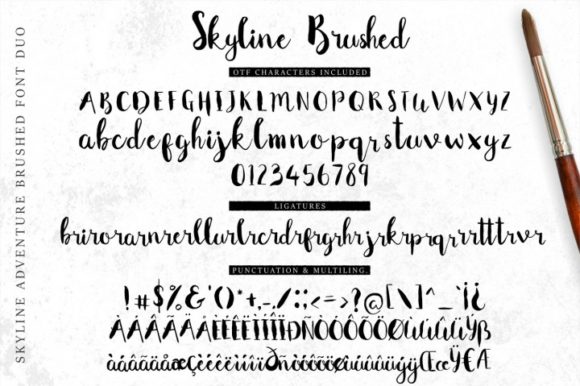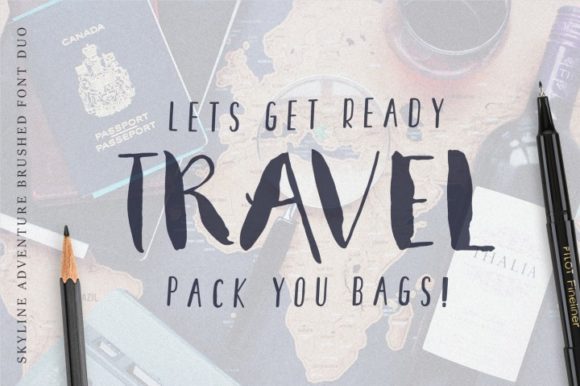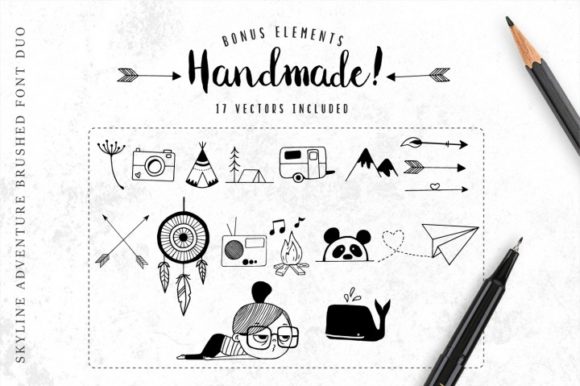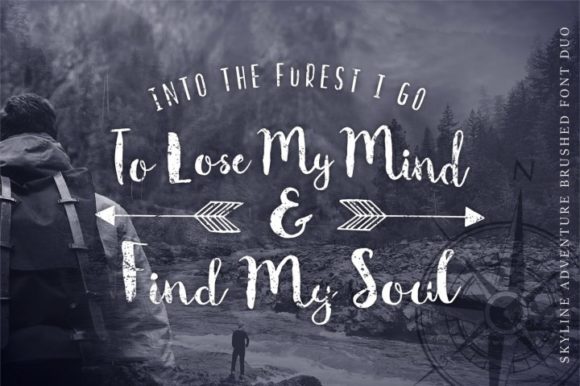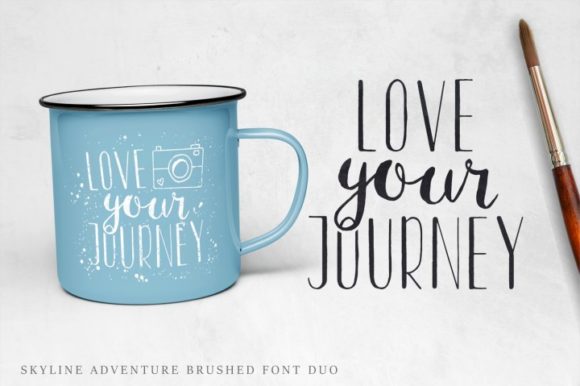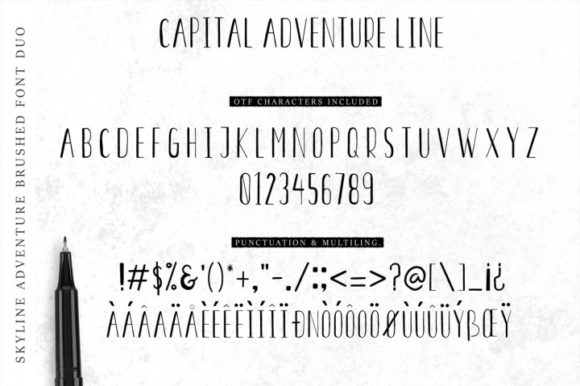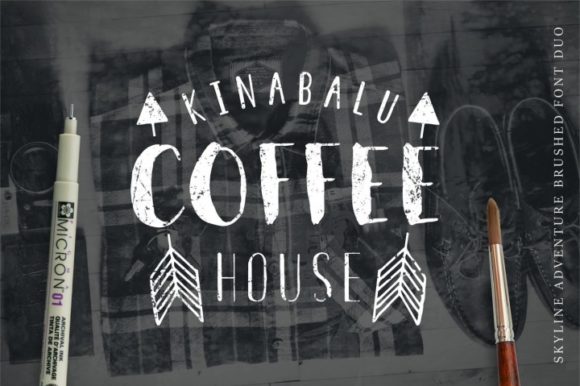
HomeScript FontsSkyline Adventure Duo Font Script Fonts Skyline Adventure Duo Font FacebookXPinterestWhatsApp Skyline Adventure Duo Font Poster 2 Skyline Adventure Duo Font Poster 3 Skyline Adventure Duo Font Poster 4 Skyline Adventure Duo Font Poster 5 Skyline Adventure Duo Font Poster 6 Skyline Adventure Duo Font Poster 7 Skyline Adventure Duo Font Poster 8 About Skyline Adventure Duo Font The Skyline Adventure is a handmade brushed font duo with an adventurous, handmade feeling. DOWNLOAD NOW People also explored Chickabiddies Bull Roller Oktoberfest Font Triunfo Family Saturday Winter Font Cosmopolite Font Ennobled Pet Sheyla Blacky Font Nextart Outline Bold Font 366 0 TagsSkyline Adventure Duo Font Previous articleEscucha Consuela Duo FontNext articleLighthouse Script Font LEAVE A REPLY Cancel reply Comment: Please enter your comment! Name:* Please enter your name here Email:* You have entered an incorrect email address! Please enter your email address here Website: Save my name, email, and website in this browser for the next time I comment. Personal Use Free Planning Personal Use Free Read more about this font Knucklehead Personal Use Free Read more about this font Winter Soldier Personal Use Free Read more about this font Krait Personal Use Free Read more about this font BLOG Where to Buy American Fonts Online in 2024 Where to Buy American Fonts Online: The Ultimate Guide for 2024 Looking for the perfect American font to elevate your design projects? You're in the... Transform Your Website: Elevate Your Typography with 7 Best Web Font Generators Free Fonts Risk: Why Free Fonts Can Be Dangerous for Designers Fonts That Capture the Spirit of New York City